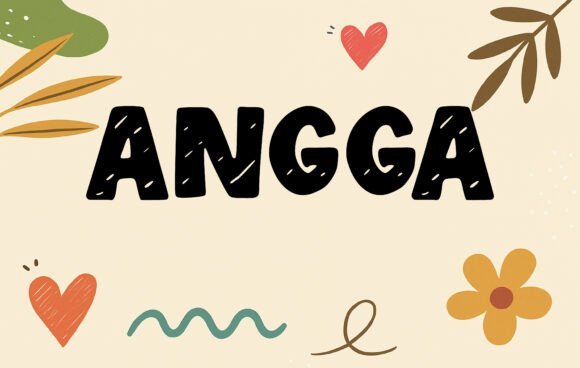
Unleash Your Creativity with the Perfect Font
Do you remember that moment when a single font choice completely transformed your design project? For designers, finding the right font can be a game-changer. It’s the difference between a good design and a great one. And that’s exactly what we’re excited to introduce you to: Angga Font.
This beautiful font is designed to be a true favorite, elevating your creative ideas to new heights. Its legibility makes it perfect for both title and body text, ensuring your message shines through in any design. Whether you’re creating magazine headlines, t-shirts, social media graphics, or branding materials, Angga Font is the perfect companion for your creative journey.
As a valuable addition to your design toolkit, Angga Font offers endless possibilities for expression and innovation. With its versatility and timeless charm, it’s no wonder Angga Font is poised to become a go-to choice for designers everywhere.
Angga Font Key Features
- Font Family: Angga Font is a sans-serif font family.
- Unique Characteristics: Angga Font features a clean, modern design with a unique combination of geometric and organic elements, making it suitable for various design applications.
Angga Font Review
As a designer, I’ve had the chance to experiment with the Angga Font, and I’m here to share my honest thoughts on this font.
- Unique Character: The Angga Font has a distinct character that stands out from other fonts in its category. Its quirky, hand-drawn style adds a touch of personality to any design.
- Legibility: Despite its playful nature, the Angga Font is surprisingly legible, making it suitable for a wide range of applications.
- Customization: The font comes with a range of weights and styles, allowing designers to tailor the look to suit their needs.
- Readability in Small Sizes: While the font is legible overall, it can become difficult to read at very small sizes, which may limit its use in certain applications.
- Not Ideal for Body Text: Due to its unique character and relatively wide letter spacing, the Angga Font may not be the best choice for large blocks of body text.
The Angga Font is a great addition to any designer’s toolkit, offering a unique and stylish option for adding personality to designs. While it may have some limitations, its strengths make it a valuable choice for the right projects.
The Angga Font is ideal for:
1. Creating a unique and eye-catching logo.
2. Designing a brand identity with a modern and sleek look.
3. Adding a touch of elegance to your wedding invitations or stationery.
Alternatives to Angga Font for Designers
Montserrat is a modern sans-serif font designed for digital use. It’s a popular choice for titles and headings due to its clean and geometric lines. Use Montserrat for titles, headings, and body text where a modern and minimalist look is desired.
Comparison to Angga Font: Montserrat is more geometric and modern, while Angga Font has a more elegant and luxurious feel. Montserrat is ideal for digital use, while Angga Font is better suited for print materials.
Lato is a sans-serif font designed for use in digital media. It’s a versatile font that works well for body text, titles, and headings. Use Lato for body text, titles, and headings where a clean and modern look is desired.
Comparison to Angga Font: Lato is more neutral and clean, while Angga Font has a more distinctive and elegant feel. Lato is ideal for digital use, while Angga Font is better suited for print materials.
Open Sans is a modern sans-serif font designed for digital use. It’s a popular choice for body text and titles due to its clean and readable lines. Use Open Sans for body text, titles, and headings where a clean and modern look is desired.
Comparison to Angga Font: Open Sans is more neutral and clean, while Angga Font has a more distinctive and elegant feel. Open Sans is ideal for digital use, while Angga Font is better suited for print materials.